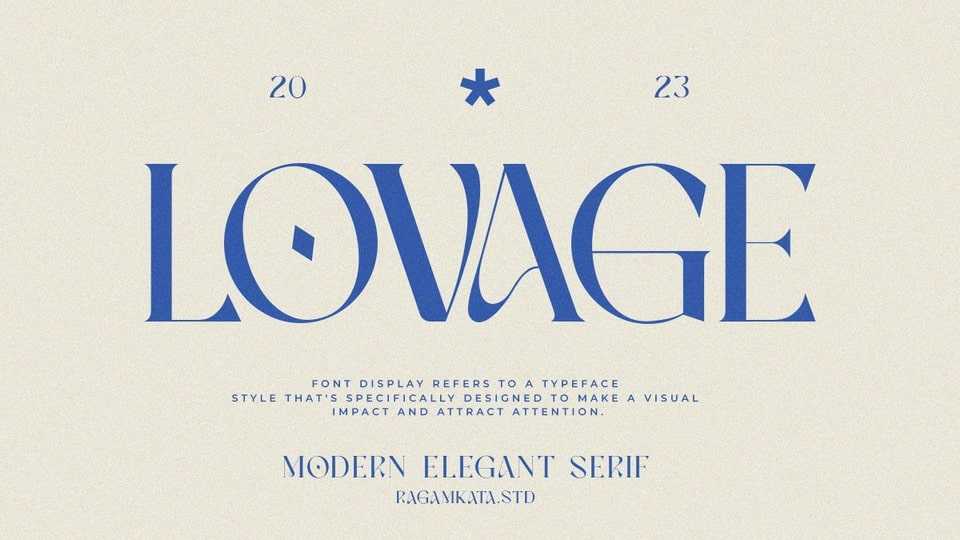
Download Lovage font, a stylish serif typeface, made for the needs of an elegant branding with additional ligatures and alternates in a more feminine and unique form.